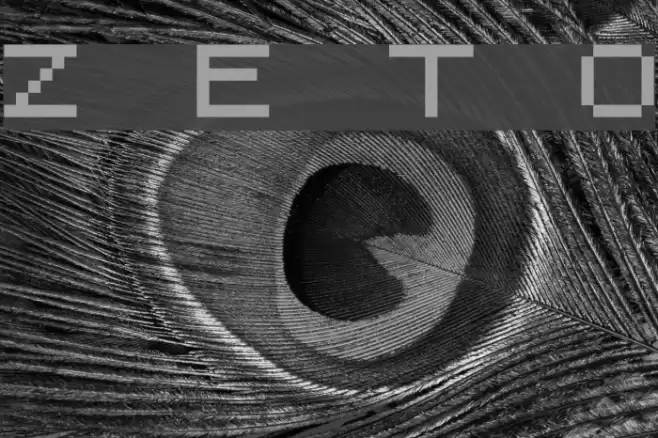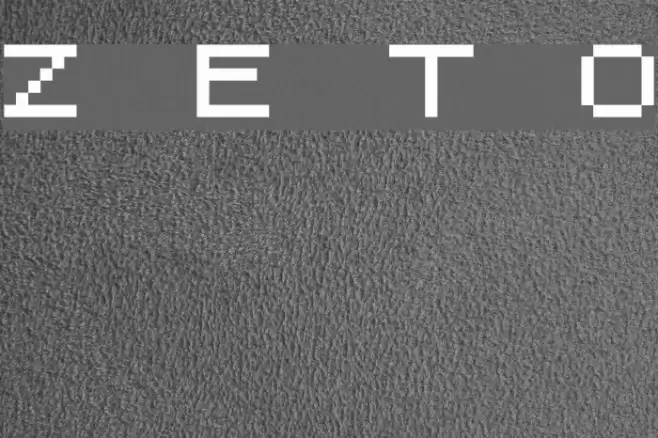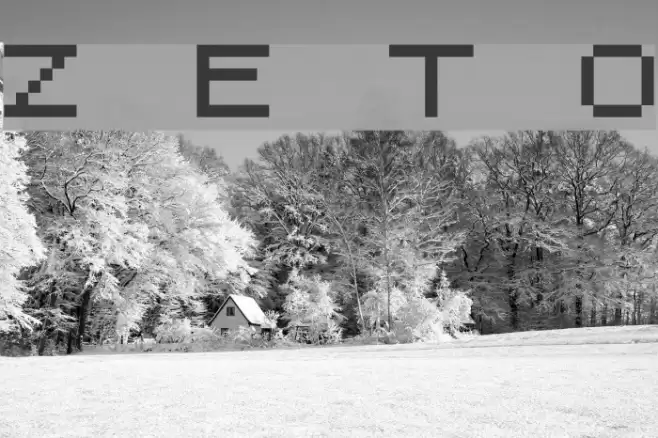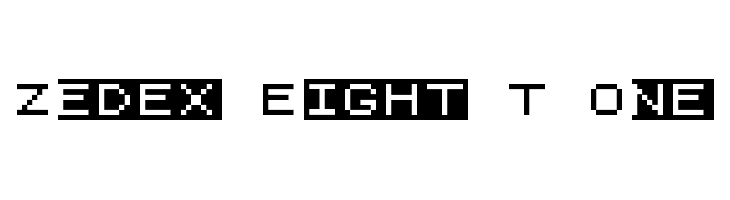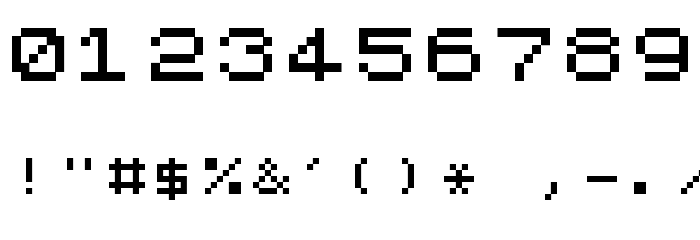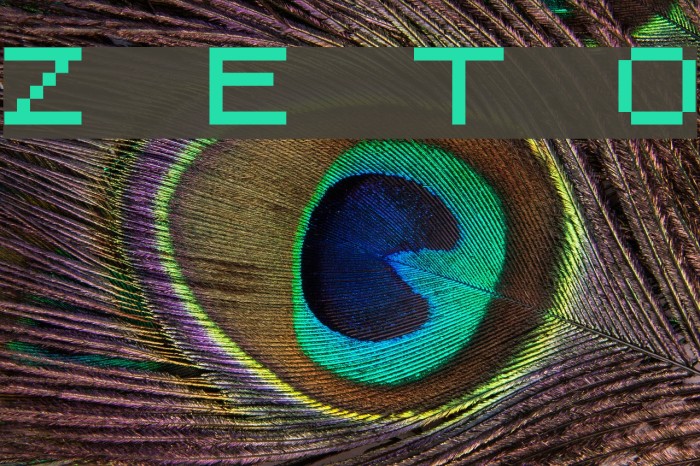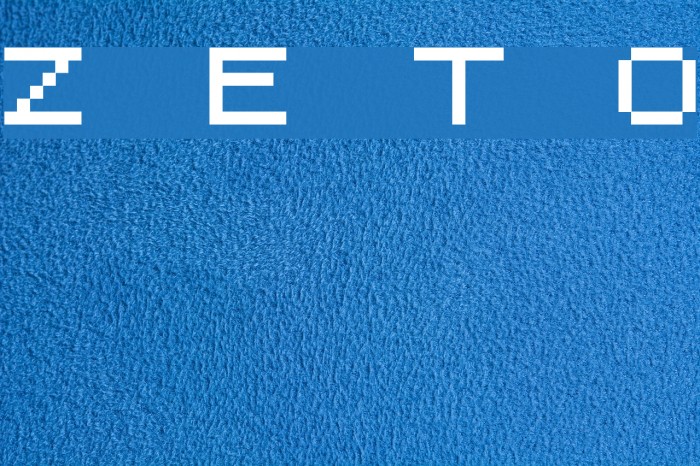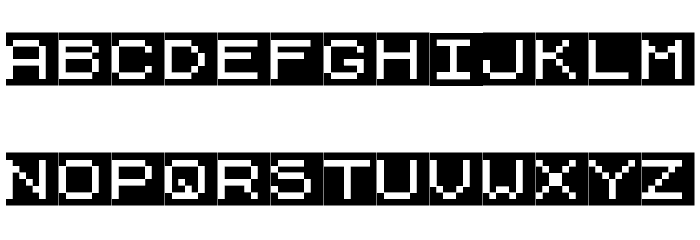
Zedex Eight T One Font
Zedex Eight T One Description
This font features a pixelated, blocky design reminiscent of early digital displays and retro video games. Each character is constructed with a grid-like precision, giving it a distinctly digital and mechanical appearance. The uppercase letters are bold and uniform, with a consistent height and width that enhances readability. The numbers and special characters maintain the same pixelated style, ensuring a cohesive look across all text. This font is ideal for projects that aim to evoke nostalgia for the early days of computing or to create a futuristic, tech-inspired aesthetic.
A pixelated, retro-style font with a digital, blocky appearance from Uncategorized fonts.
- Proposed Projects: Ideal for retro video game designs, tech-themed posters, digital art, and nostalgic branding projects.
- Overall Style: Retro, Digital
- Use Case: Headlines, Logos, Digital Art